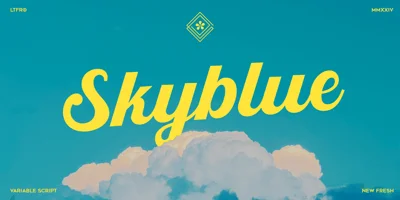
Skyblue Script Variable
Skyblue Script Variable Font
Skyblue Script Variable Font is perfect for elegant calligraphy projects, personalized wedding stationery, luxury brand signatures, handwritten letter designs, artistic greeting cards, sophisticated social media graphics, premium packaging labels, custom monogram creation, romantic event invitations, and fluid design animations. Its variable character makes it ideal for projects requiring adaptive elegance and seamless typographic transitions.
What makes Skyblue Script Variable Font exciting is its revolutionary variable technology that allows infinite customization of script elegance through seamless weight and style transitions. The font features flowing calligraphic letterforms with dynamic adaptability that creates smooth typographic animations and perfectly tailored script appearances. Its variable character transforms static text into living, breathing calligraphy that adapts flawlessly to any design requirement while maintaining authentic handwritten beauty.
The Skyblue Script Variable Font family includes infinite weight variations from Ultra Light to Extra Bold, with continuous slant adjustments and optical size scaling. The variable technology preserves the font's script essence while offering unlimited customization possibilities for creating perfect calligraphic expressions. The comprehensive character set includes elegant ligatures, stylistic alternates, swash characters, and decorative flourishes essential for sophisticated variable script typography projects.
Professional designers and calligraphy enthusiasts consistently choose Skyblue Script Variable Font for projects demanding cutting-edge script typography solutions. The font's variable character enables precise control over elegance levels while ensuring seamless performance across responsive design applications. Its revolutionary technology makes it suitable for both static traditional applications and dynamic digital experiences requiring fluid typographic transitions.
Whether you're developing adaptive brand identities, creating responsive web designs, or designing animated calligraphy experiences, Skyblue Script Variable Font provides the perfect combination of traditional elegance and technological innovation. The font's variable architecture ensures optimal performance across all screen sizes while maintaining the authentic charm of handwritten calligraphy throughout every weight variation.
The technological advancement of Skyblue Script Variable Font makes it exceptional for creating future-ready designs that adapt gracefully across multiple platforms and devices. Its variable precision and script appeal work seamlessly across traditional print applications and cutting-edge digital environments. The font performs magnificently in both static elegant displays and dynamic interactive calligraphy experiences.
Embrace typographic evolution with Skyblue Script Variable Font and discover how variable script technology can revolutionize your calligraphy projects with infinite customization possibilities. This remarkable typeface combines handwritten tradition with variable font innovation, making it indispensable for designers seeking the ultimate flexibility in elegant script typography.